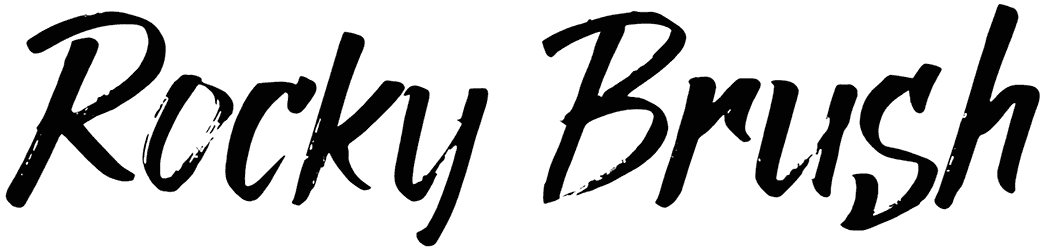
Rocky Brush Font
Rocky Brush is an adorable script font that offers two distinctive styles and prominently broadens your selection range in the middle of designing remarkable graphic content like book covers, stickers, logos, menus, or social media posts. Aside from all of their benefits, this brush font carries a feeling of dynamic, tenderness, vivacity, or sincerity.